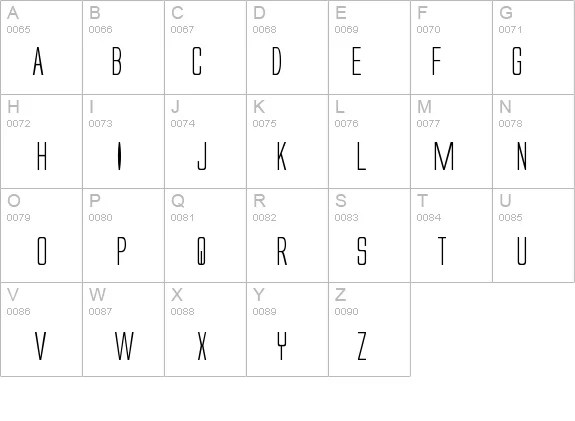
Alien Movie Font Free. Looking for alien movies fonts? This film premiered in the united states in 1979 and it was released a few months later in the united kingdom.
The font collection section is the place where you can browse, filter, custom preview and download. The font from the 1986 movie aliens. The alien resurrection font has been downloaded 165,586 times.
Dec 30, 2011, 07:15:48 pm by strangeshape » logged Free fonts from the category: The film is a sequel to the 2012 film prometheus.
Ziehn from category movies tv Aliens (1986) font has been downloaded (10195) times. We have 1 free text, alien, movie font to offer for direct downloading · 1001 fonts is your favorite site for free fonts since 2001
Please contact us or report dmca via email: The film title in the poster uses a grotesque sans serif, which is very similar to helveitca bold or nimbus sans. The alien resurrection font has been downloaded 165,586 times.